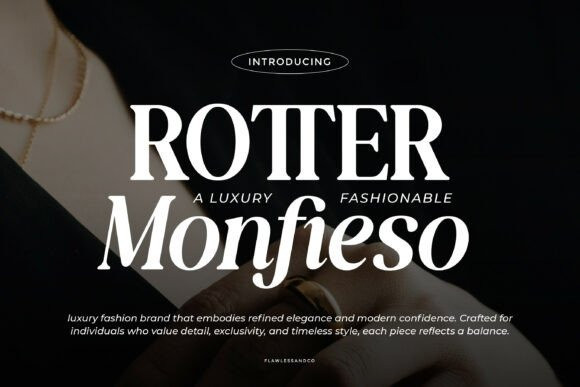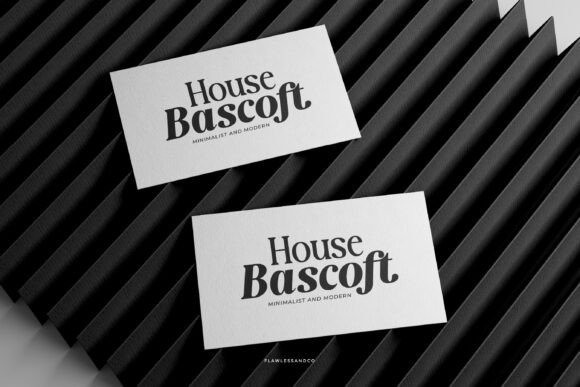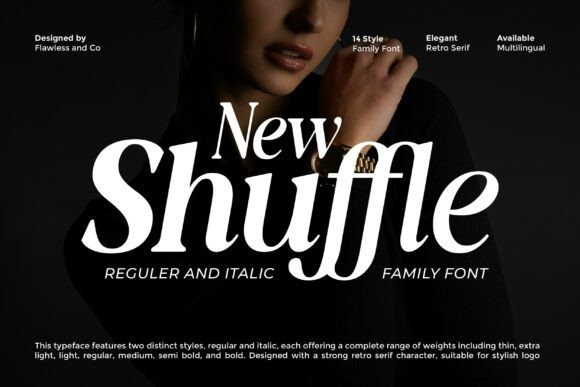
New Shuffle Font
New Shuffle Font is a modern serif family font that blends elegance with a subtle retro character. Featuring both Regular and Italic styles across a wide range of weights, this typeface is designed to deliver flexibility, sophistication, and strong visual impact.
Its refined curves and balanced proportions make New Shuffle perfect for premium and contemporary design projects.